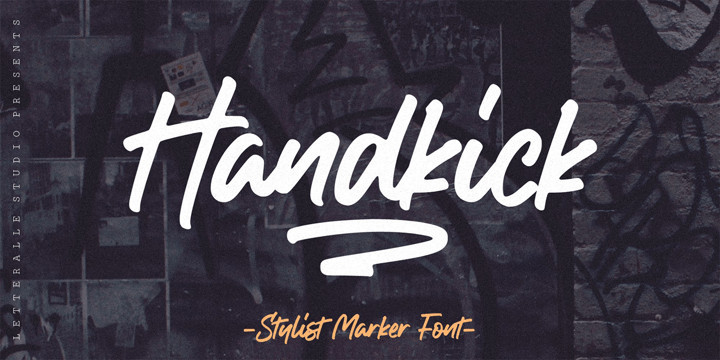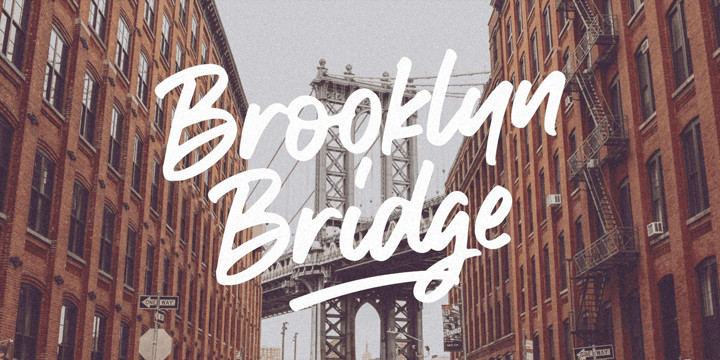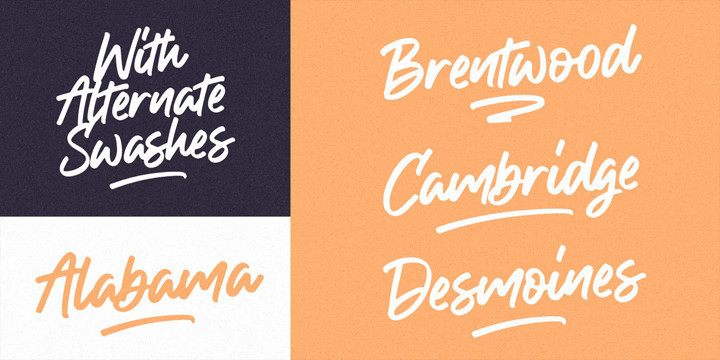
Handkick Font
a smooth and silky handwritten font. handkick is equipped with multilingual support, ligature, and also a swash underline. To access swash you only need to type “_1” – “_3”. Handkick is very suitable for various design needs such as merchandise, packaging, social media, ads, T-shirts, logos, events, and many more.